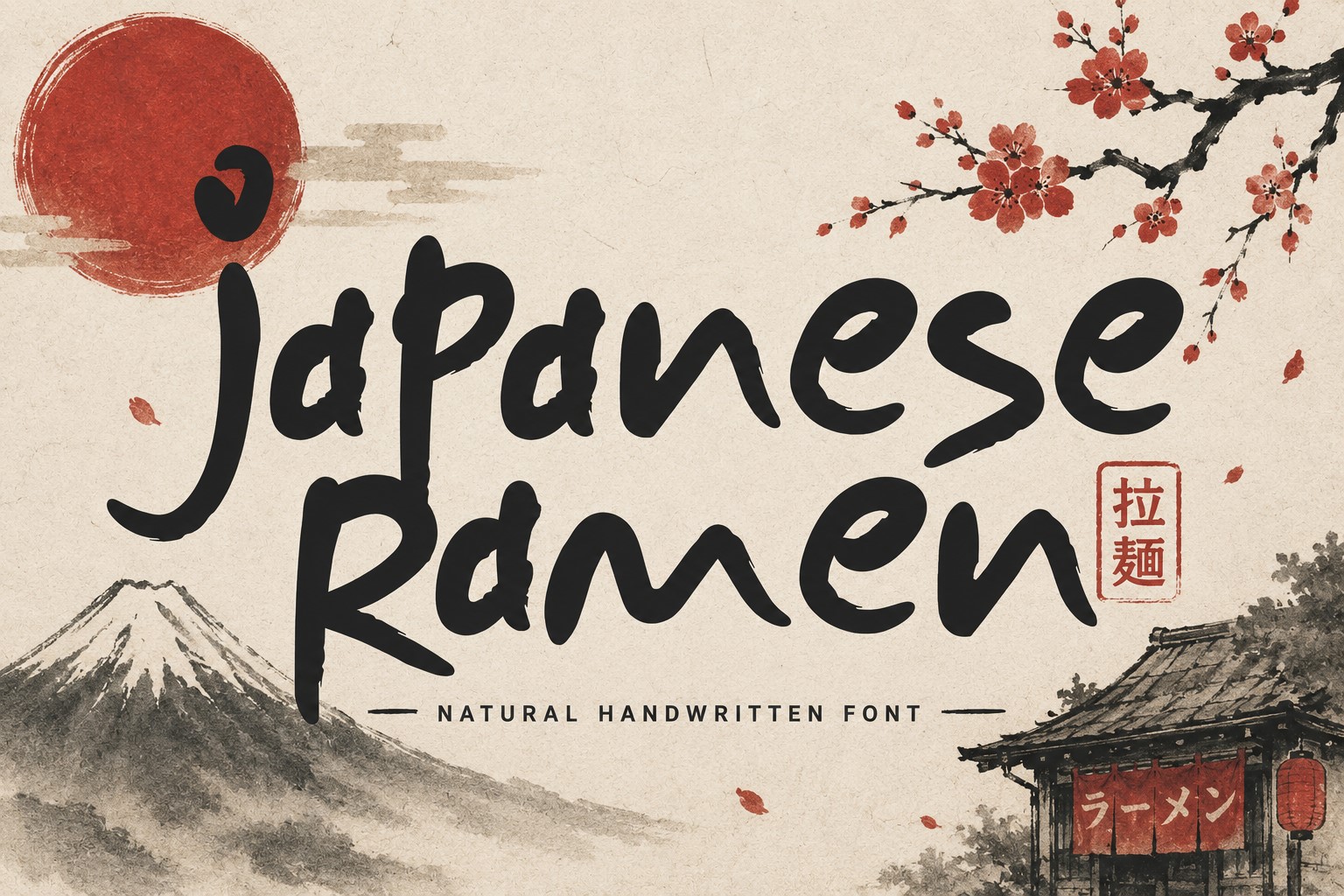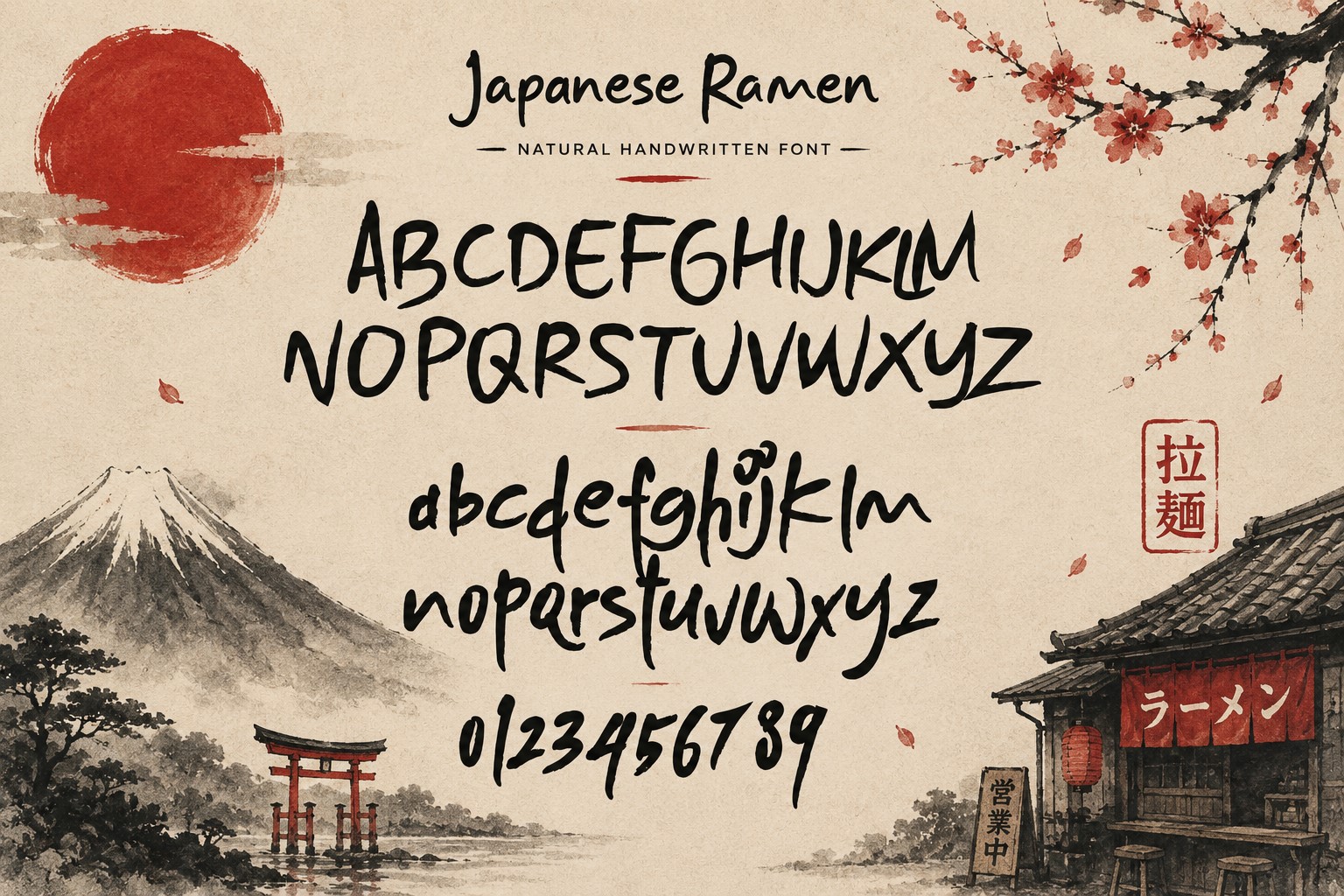
Japanese Ramen is a natural handwritten font inspired by the beauty of traditional brush strokes and authentic hand lettering. Designed with an organic flow, rough ink texture, and expressive character shapes, this font brings a warm handmade feeling to every design.
With its casual yet artistic personality, Japanese Ramen is perfect for creating unique logos, restaurant branding, packaging designs, posters, quotes, book covers, social media graphics, and creative projects that need a natural handwritten touch.
Each letter is carefully crafted to keep the imperfections of real handwriting, giving your artwork a more personal, human, and authentic appearance. The combination of bold strokes and playful movement creates a strong visual impact while maintaining readability.